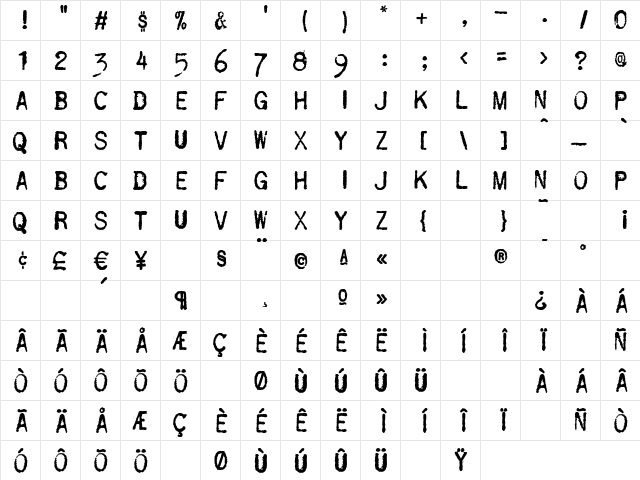
CablegramUrgent Regular
Design Context for CablegramUrgent Typeface
CablegramUrgent is a composed and adaptable typeface that performs quietly and consistently across a wide range of design contexts.